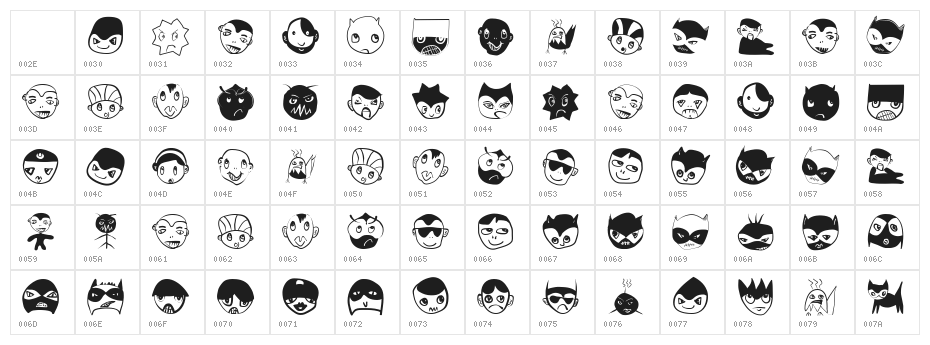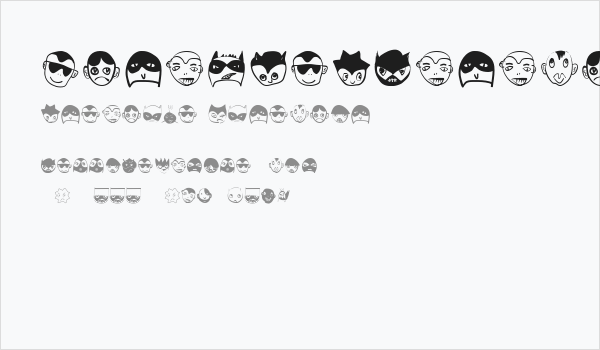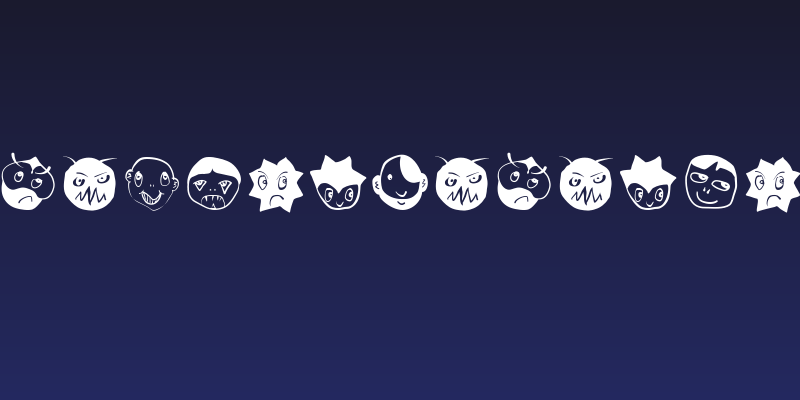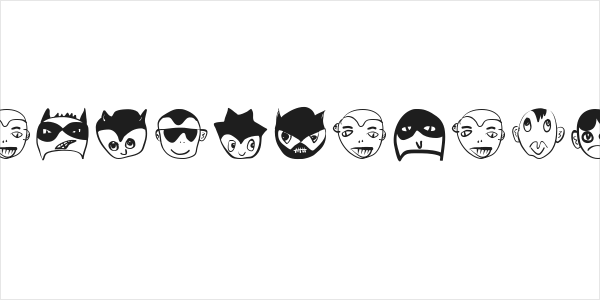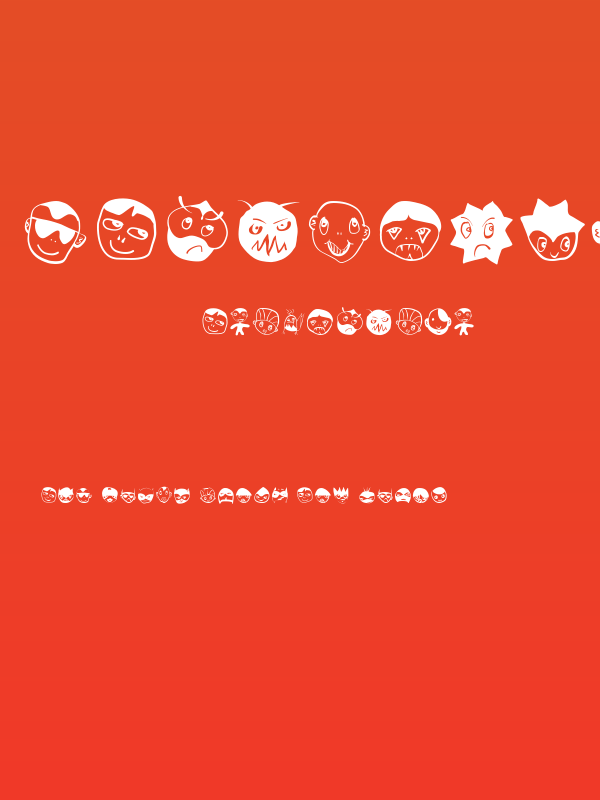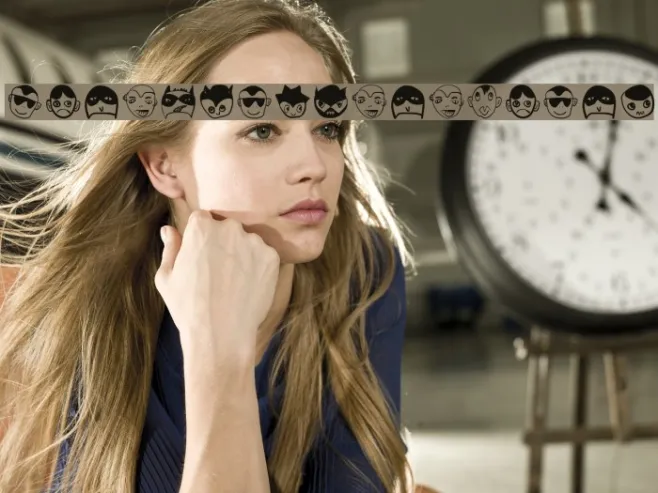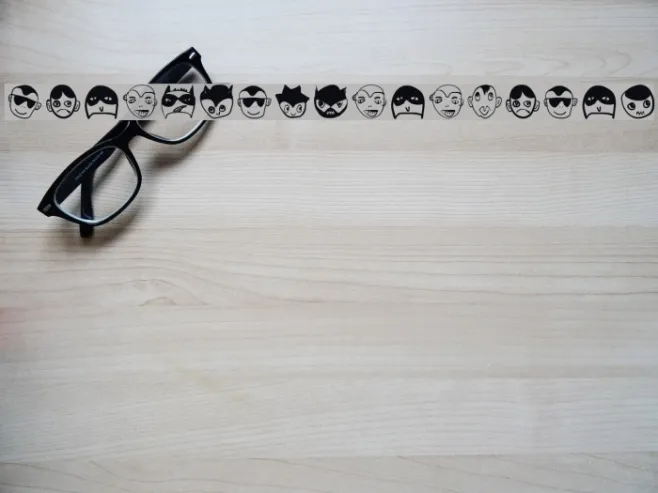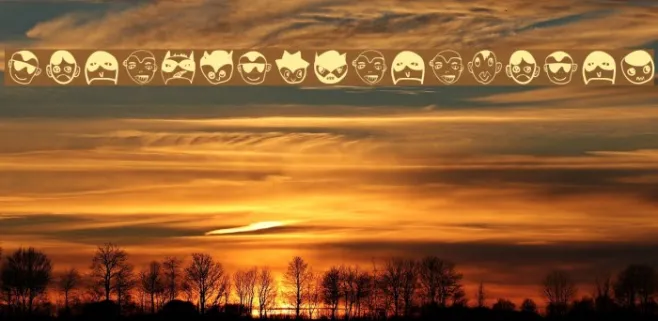
StrangeCharacters Font
StrangeCharacters Description
A playful and highly decorative font composed of unique cartoon faces and whimsical character illustrations for each glyph, featuring a mix of bold and outlined styles with expressive, exaggerated features.
| Overall Style | Decorative, Whimsical, Playful |
| Use Case | Logos, Headlines, Posters, Themed event materials |
| Proposed Projects | Children’s books, comic titles, party invitations, posters, playful branding, creative social media graphics. |